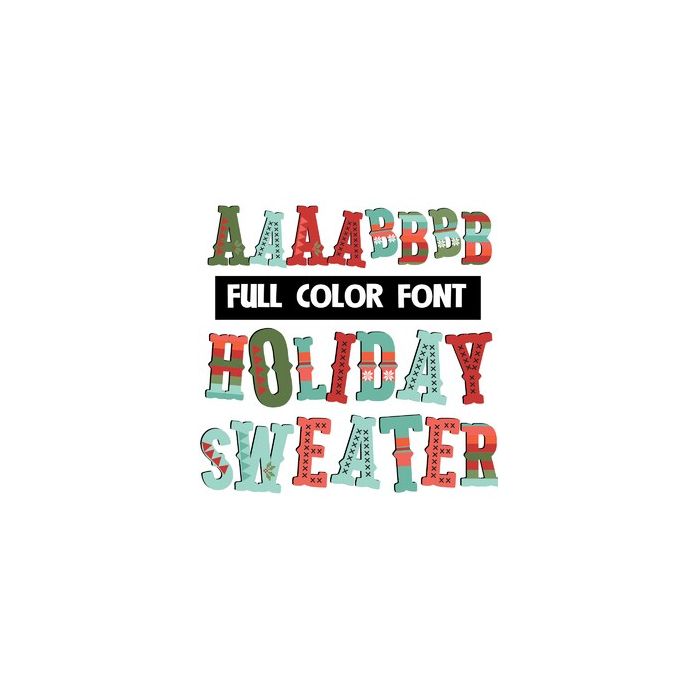
Holiday Sweater Color Font
This full-color font features Christmas patterns on whimsical lettering. There is an alternate upper and lowercase in different colors to help you keep your work creative looking. Access it through your system's character map or the glyph map in Silhouette Studio. This font works best for titles, displays, posters and more. Please note color fonts will show as black in non compatible programs. This font type is compatible with Silhouette Studio